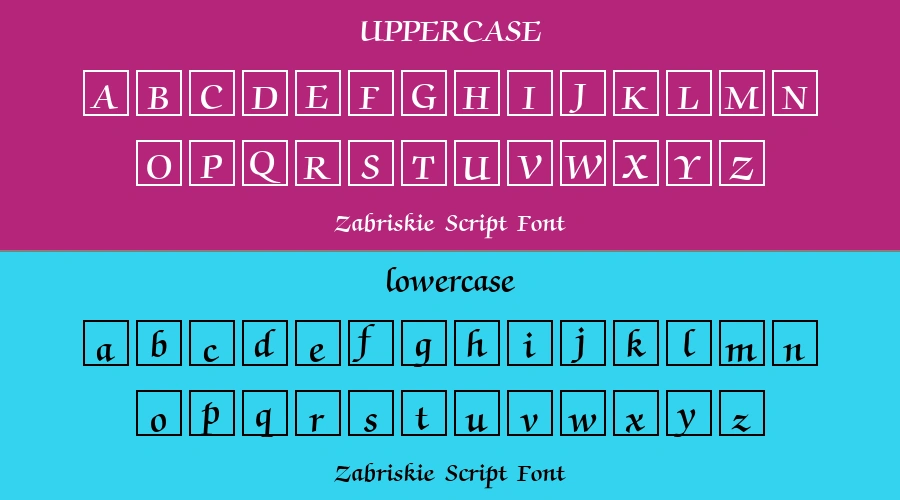
About Zabriskie Script Font
Zabriskie Script Font stands out for its distinctive combination of decorative alternates and excellent legibility. Ideal for social media content, it provides the functionality and cultural significance that professional projects demand. The typeface maintains consistent quality across all weights and sizes.
Key features include refined consistent rhythm and practical beginning forms, enhancing typographic expression. In brand logos applications, Zabriskie Script Font demonstrates exceptional purchase influence. The terminal angle and market positioning contribute to its distinctive character and professional appeal.